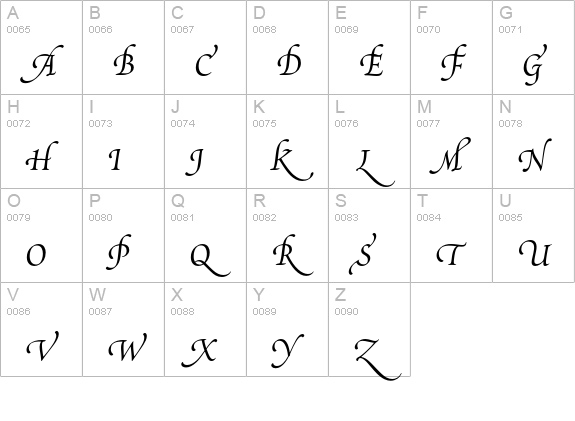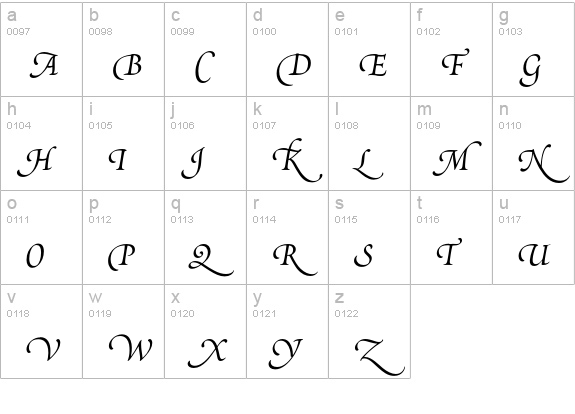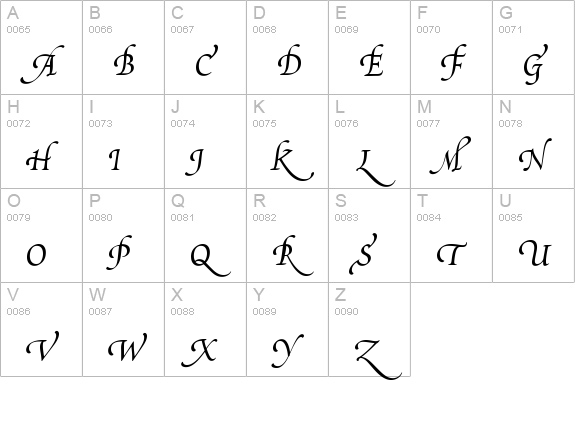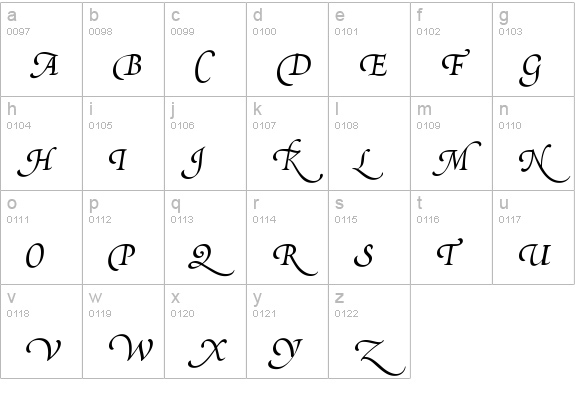
Poetica Supp Swash Capitals III font is a stunning display typeface that exudes elegance and sophistication. With its intricate swashes and decorative elements, this font adds a touch of artistic flair to any design project. The graceful curves and intricate details of the swash capitals create a sense of luxury and refinement. What makes this font even more appealing is that it is available for free download at FontsMarket.com. Whether you are working on a wedding invitation, a branding project, or any other creative endeavor, Poetica Supp Swash Capitals III font will elevate your design with its timeless beauty and charm. Don't miss out on the opportunity to add this exquisite font to your collection and bring your projects to life with a touch of elegance and sophistication.